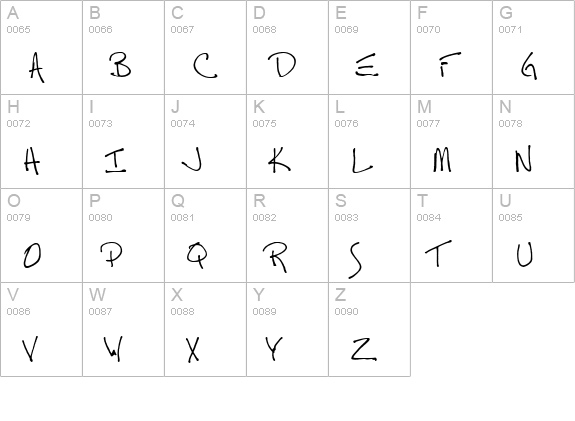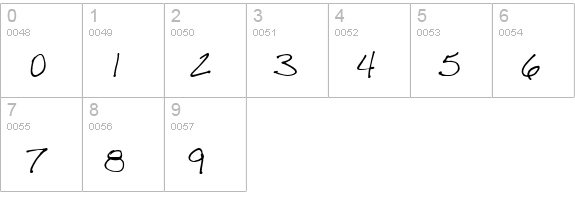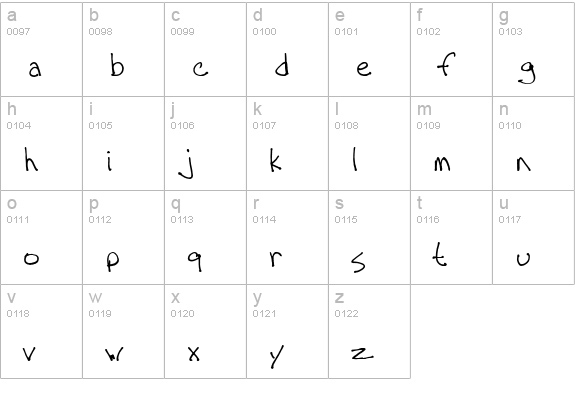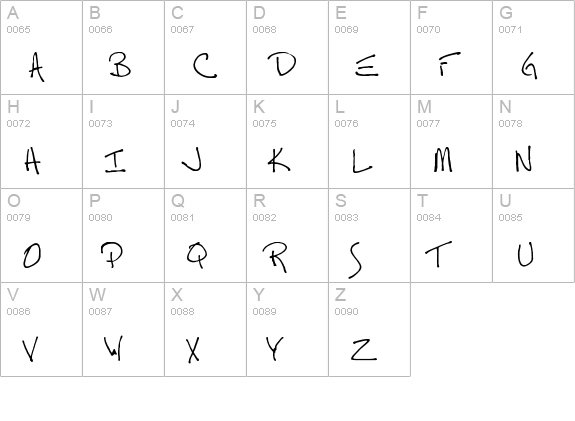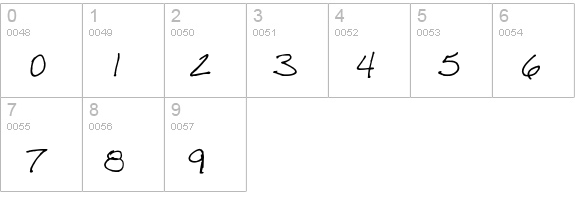
Tall Paul Font Details
Tall Paul is a stunningly elegant font that exudes sophistication and style. With its tall and slender letterforms, this font stands out amongst the rest, making it the perfect choice for projects that require a touch of class. Whether you're designing wedding invitations, creating a logo for a luxury brand, or crafting a sleek website, Tall Paul will elevate your design to new heights. What makes Tall Paul truly special is that it is not only visually captivating, but it is also freely available for download. Yes, you read that right – this incredible font can be yours for absolutely no cost! You can easily access and download Tall Paul at FontsMarket.com, a trusted and reliable source for all your font needs. With Tall Paul, your creativity knows no bounds. Its clean lines and graceful curves give your designs a timeless appeal, while its versatility allows it to seamlessly fit into various design aesthetics. Whether you're going for a modern and minimalist look or a more elaborate and ornate style, this font will effortlessly adapt to your vision. Furthermore, Tall Paul offers extensive language support, making it a truly global font. No matter where your audience is located, you can communicate your message effectively and beautifully with this font. Its legibility and clarity ensure that your text is easily readable, even at small sizes. So, why wait? Embrace the elegance and charm of Tall Paul and take your designs to the next level. Download this exquisite font for free at FontsMarket.com and unlock a world of endless possibilities. Whether you're a professional designer or a passionate hobbyist, Tall Paul is a must-have in your font collection.